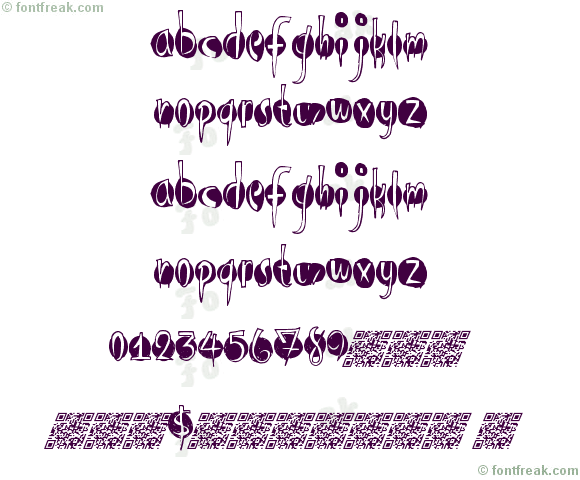
OpenLounge
About OpenLounge
OpenLounge by Xerographer Fonts is a captivating display font that effortlessly merges playful charm with artistic flair. This handwritten style boasts a unique, informal aesthetic characterized by its irregular stroke weights and whimsical curves, making it an ideal choice for projects that require a touch of personality. The slightly varying contrast in its strokes adds depth and visual interest, while the open spacing between letters enhances readability, ensuring that your message stands out without sacrificing elegance.
This font shines in various creative applications. It is particularly well-suited for wedding invitations, where its romantic and personal touch can elevate the overall design. Additionally, OpenLounge is a fantastic choice for restaurant menus, providing a warm and inviting feel that resonates with diners. Its playful nature makes it an excellent option for children's book covers, where it can capture the imaginations of young readers. Furthermore, OpenLounge can be effectively utilized in branding for small businesses, such as cafes and boutiques, to convey a friendly and approachable image.
Targeting graphic designers, small business owners, and content creators, OpenLounge offers versatility and charm in equal measure. Its unique style can help elevate various projects, making it a valuable addition to any designer's toolkit.